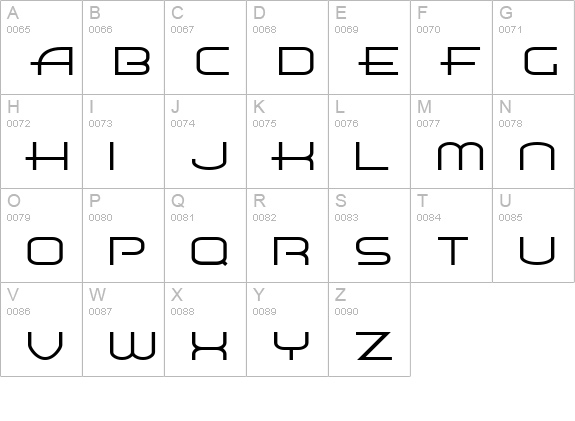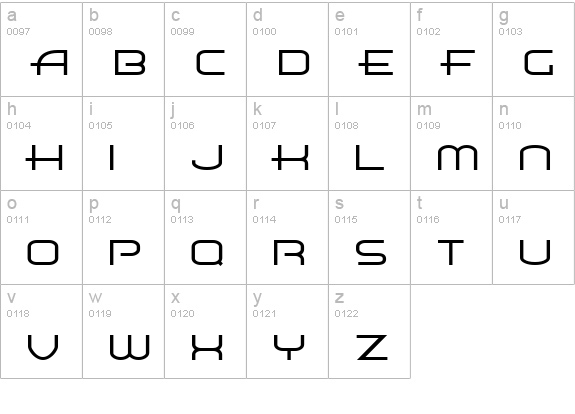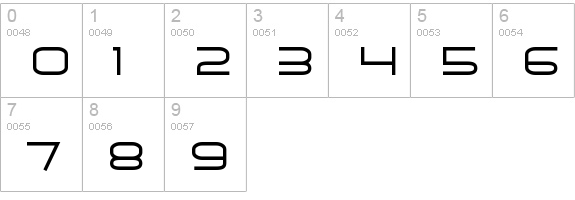
Air Flow BTN Lt Font Details
Air Flow BTN Lt is a stylish and modern font that exudes elegance and sophistication. With its clean lines and sleek design, this font is perfect for a wide range of design projects, from branding to advertising. The soft curves and sharp angles of Air Flow BTN Lt create a visually appealing contrast that will make your text stand out. This versatile font is ideal for both headings and body text, making it a great choice for any project where you want to make a statement. Whether you're designing a sleek website, eye-catching posters, or stylish invitations, Air Flow BTN Lt is sure to add a touch of class to your designs. Best of all, Air Flow BTN Lt is available for free download at FontsMarket.com, making it accessible to all designers looking to add a touch of elegance to their work. Download Air Flow BTN Lt today and elevate your designs to the next level!